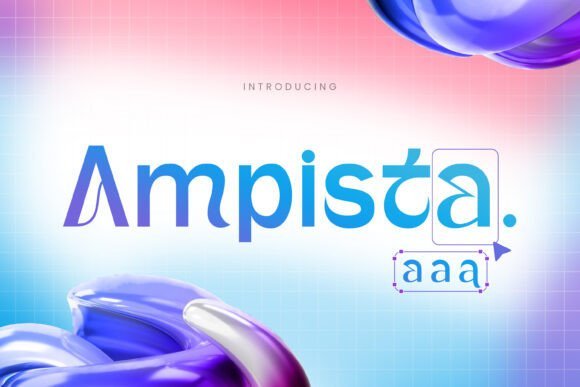
The Perfect Typographic Touch: Introducing Ampista Font
As designers, we’ve all been there – staring at a blank page, trying to find the perfect font to bring our creative vision to life. The search can be daunting, but what if you stumbled upon a font that not only meets your expectations but exceeds them? For those seeking a modern, stylish font that adds an air of luxury to their brand, we’re excited to introduce the Ampista Font.
This sleek and refined font is designed to elevate premium brands in fashion, beauty, and lifestyle. With its luxurious alternates and clean lines, the Ampista Font is a versatile choice for logos, websites, and promotional materials. Its elegant touch is sure to leave a lasting impression, making it a valuable asset for designers looking to create a cohesive brand identity.
Ampista Font Key Features
- Font Family: Ampista Font is a sans-serif font family designed for display and text use.
- Character Count: The Ampista Font family includes a wide range of characters, including uppercase and lowercase letters, numbers, punctuation, and special characters.
- Unique Characteristics: The Ampista Font features a unique blend of geometric and organic shapes, resulting in a clean and modern aesthetic.
Ampista Font Review
I recently had the chance to work with the Ampista Font, and I must say it’s a mixed bag. ✨ On the one hand, I love the unique blend of modern and vintage elements in its design. The Ampista Font is perfect for anyone looking to add a touch of sophistication to their project.
- ✨ Unique blend of modern and vintage elements
- ✨ Perfect for adding a touch of sophistication
- ✨ Works well for headings and titles
However, there are some limitations to consider. ⚠️ The Ampista Font can be a bit too ornate for some projects, which may make it difficult to read at smaller font sizes. Additionally, the font lacks a true italic style, which can be a problem for projects that require italic text.
- ⚠️ Can be too ornate for some projects
- ⚠️ Lacks a true italic style
- ⚠️ May be difficult to read at smaller font sizes
Overall, I think the Ampista Font is a great choice for projects that require a unique and sophisticated look. However, it may not be the best fit for every project.
Getting the Most Out of Ampista Font
For best results, use Ampista Font with bold and italic styles to add emphasis and create visual interest.
Experiment with different font sizes and combinations to create a unique look.
Ampista Font is ideal for:
1. Headings and titles.
2. Quotes and captions.
3. Branding and logos.
Alternatives to Ampista Font for Designers
Bebas Neue is a modern sans-serif font that is perfect for creating a clean and minimalist look. It is ideal for use in headings and titles, and can be used in various design contexts, including logos, branding, and digital products. Bebas Neue is similar to Ampista Font in that it is also a sans-serif font, but it has a more modern and sleek design. It is available for free and is highly customizable.
Montserrat is a geometric sans-serif font that is designed for use in urban environments. It is highly legible and is perfect for use in digital products, such as websites and mobile apps. Montserrat is similar to Ampista Font in that it is also a sans-serif font, but it has a more geometric and modern design. It is highly customizable and is available for free.
Open Sans is a modern sans-serif font that is designed for use in digital products, such as websites and mobile apps. It is highly legible and is perfect for use in body text and headings. Open Sans is similar to Ampista Font in that it is also a sans-serif font, but it has a more modern and clean design. It is highly customizable and is available for free.
Inter is a modern sans-serif font that is designed for use in digital products, such as websites and mobile apps. It is highly legible and is perfect for use in body text and headings. Inter is similar to Ampista Font in that it is also a sans-serif font, but it has a more modern and clean design. It is highly customizable and is available for free.